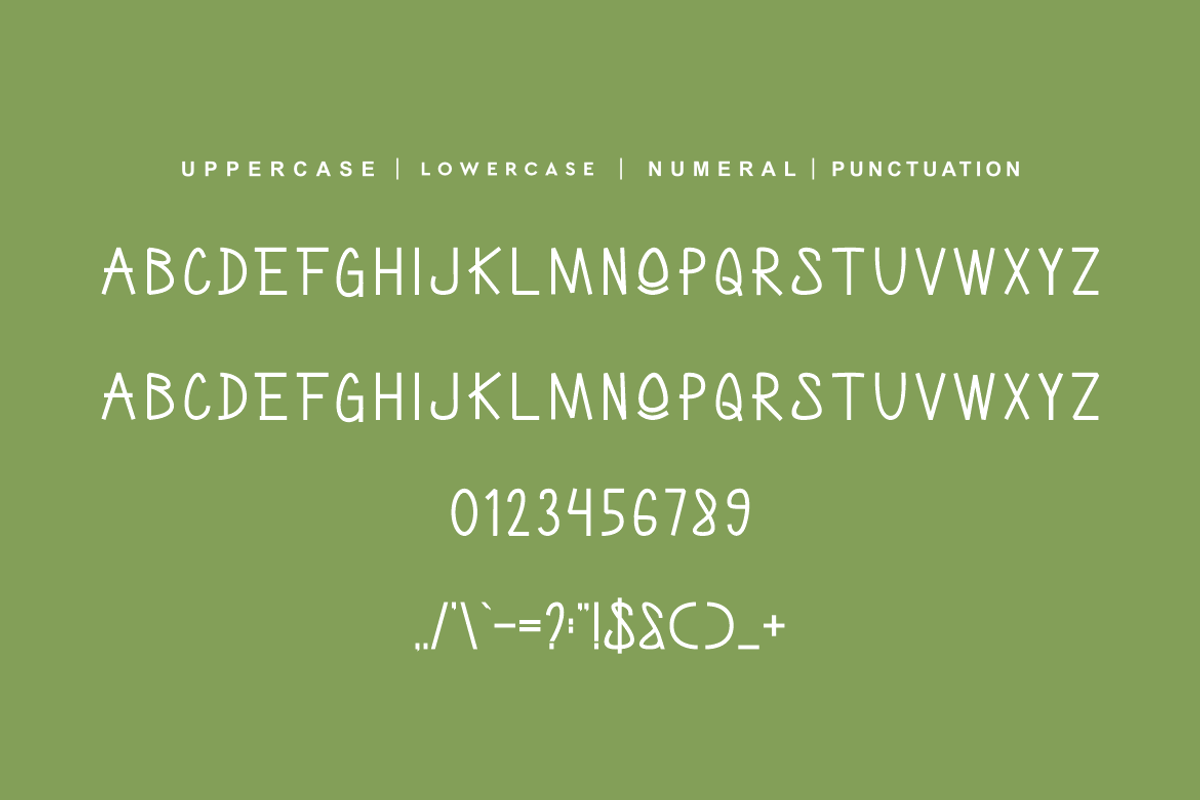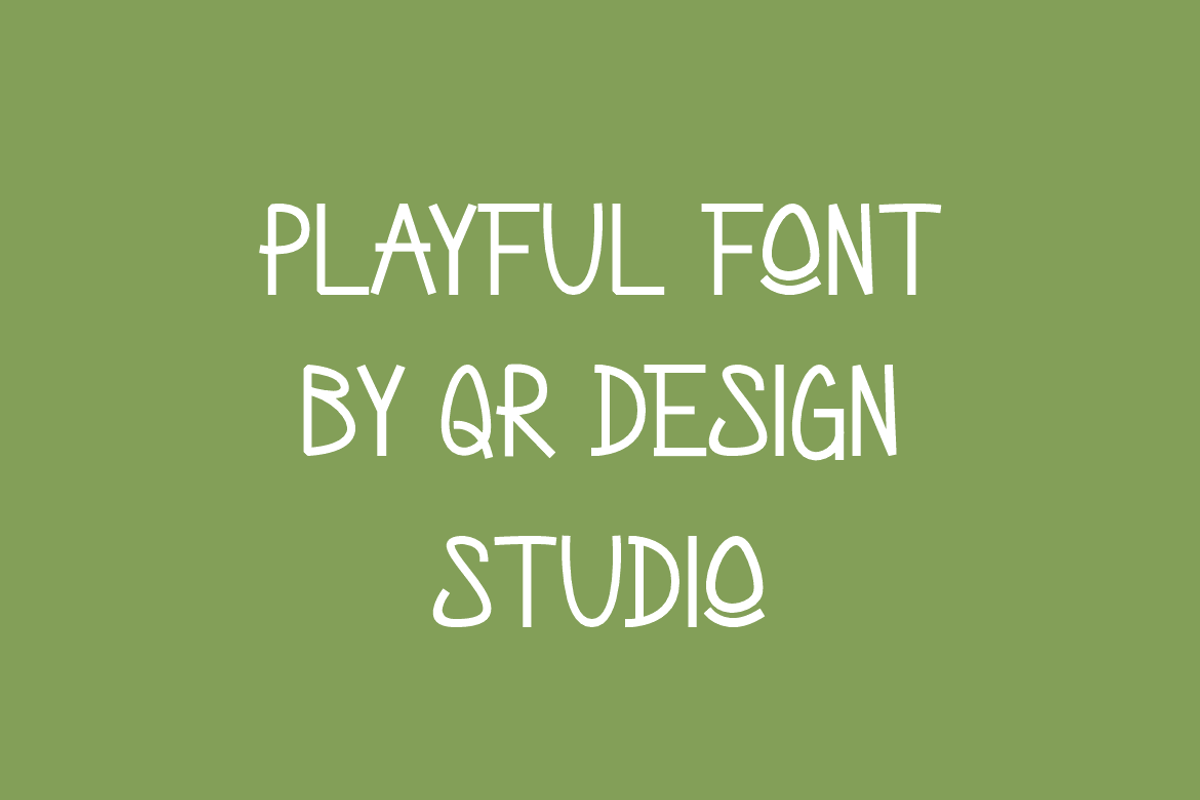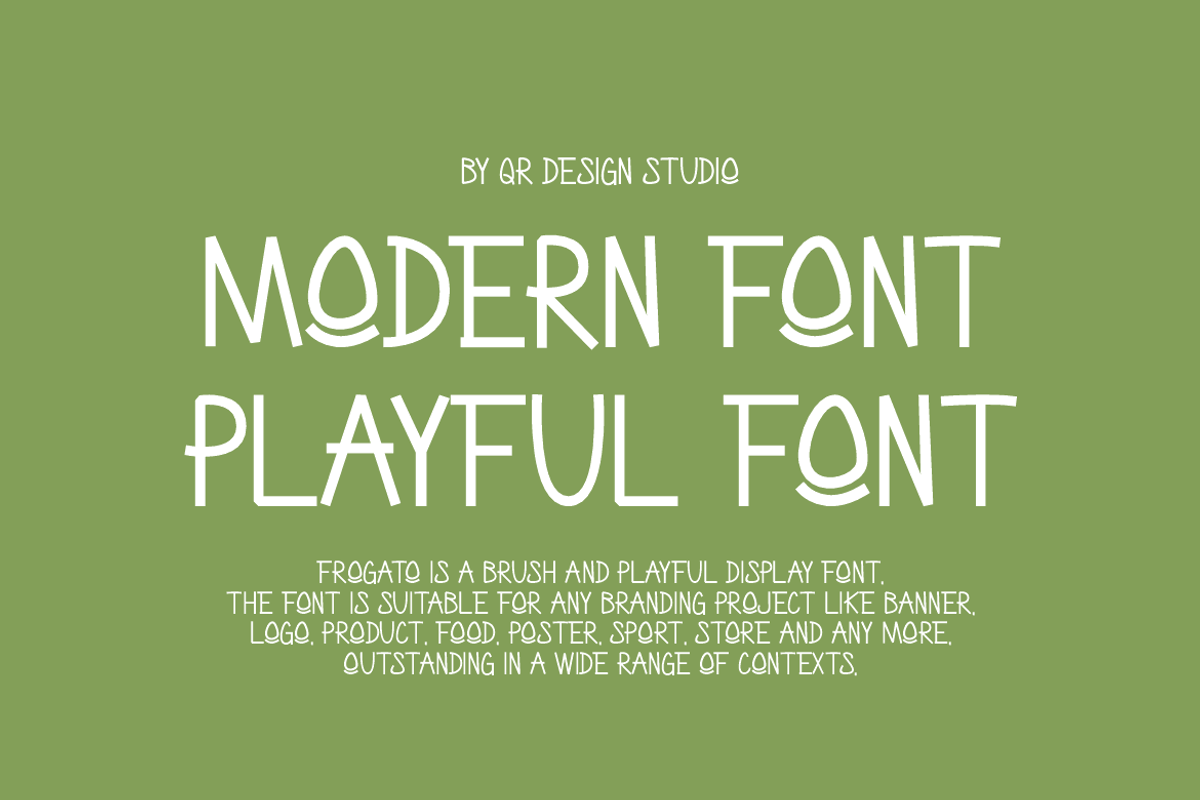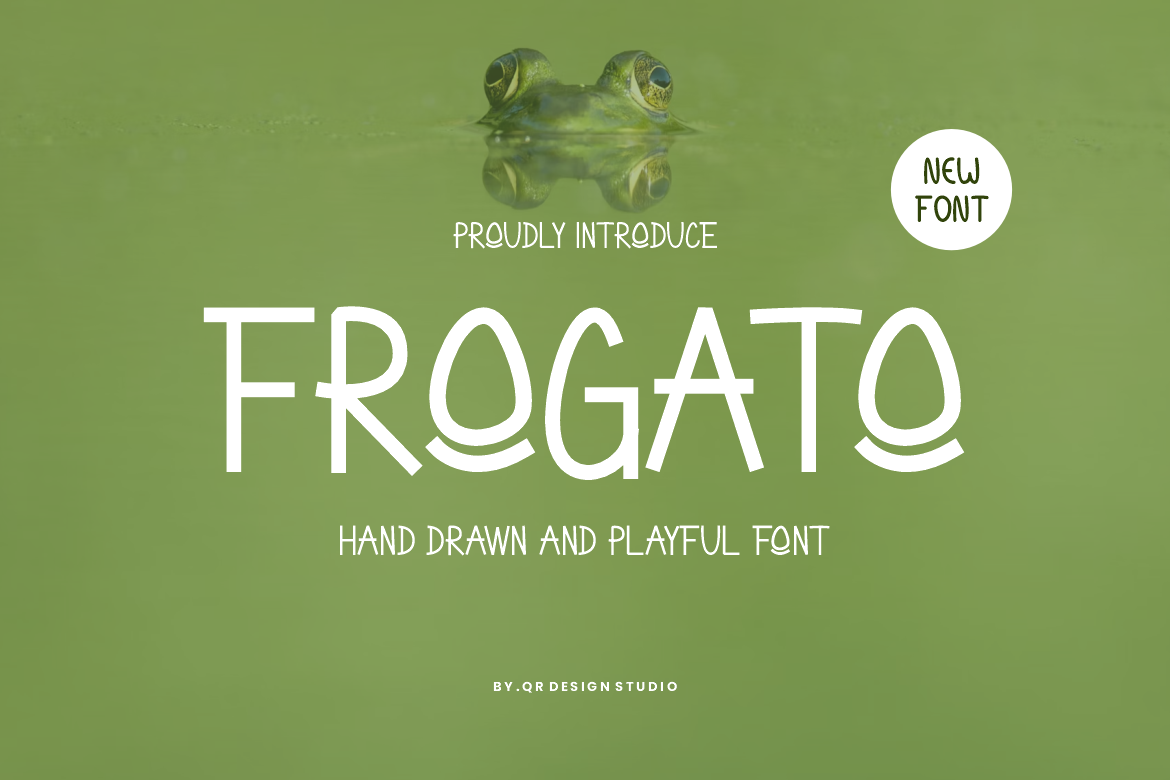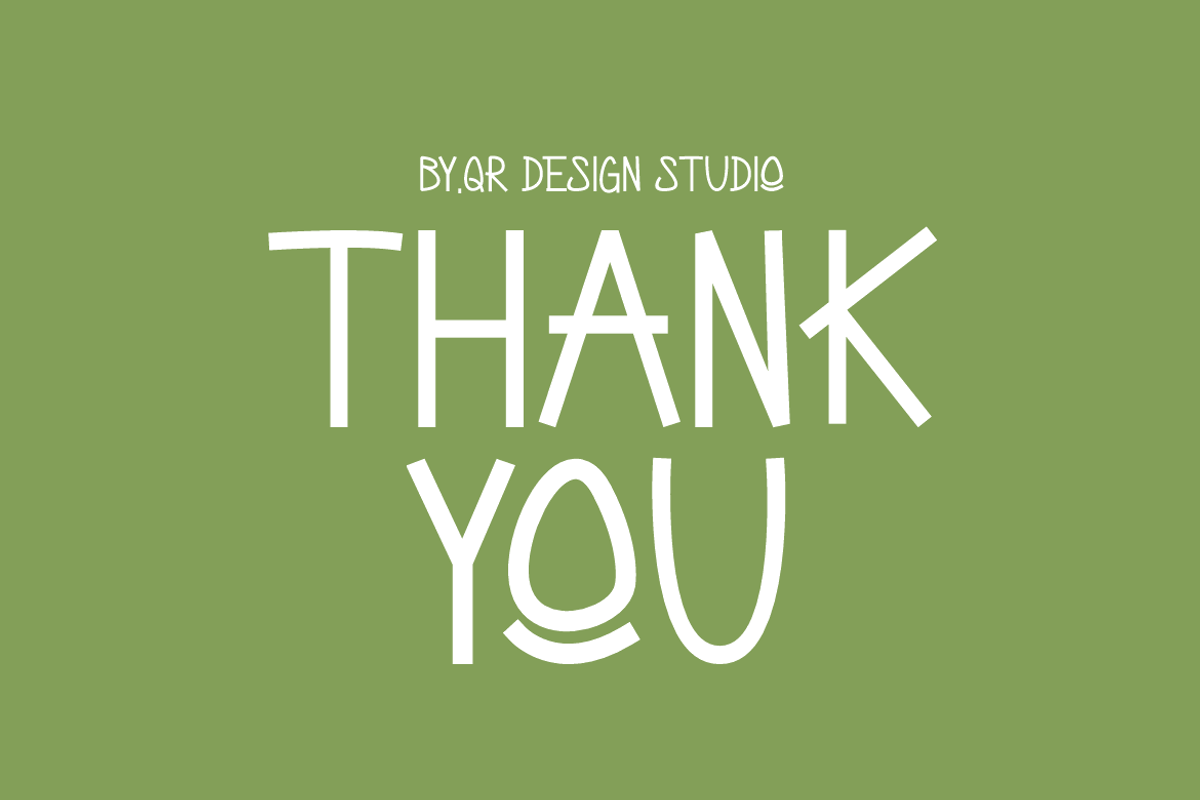
Frogato - Hand Drawn & Playful font
Frogato Font is a hand drawn and authentic display font. The font is suitable for any branding project like kids, poster, logo, sport, and many more. Outstanding in a wide range of contexts.